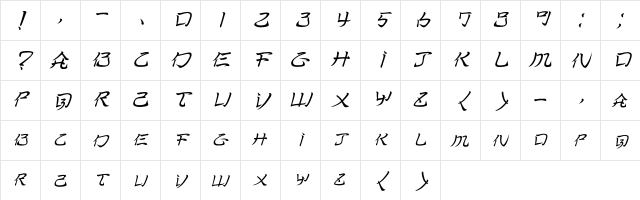
FCL-Thyroxine Oblique
Design Context for FCL-Thyroxine Typeface
FCL-Thyroxine is a composed and adaptable typeface that performs quietly and consistently across a wide range of design contexts. The dynamic lean of this cut emphasises speed and emphasis in any layout.
Pro Tip: Try FCL-Thyroxine for annotation and caption copy alongside an upright companion — the contrast in angle creates a dynamic but ordered typographic system.